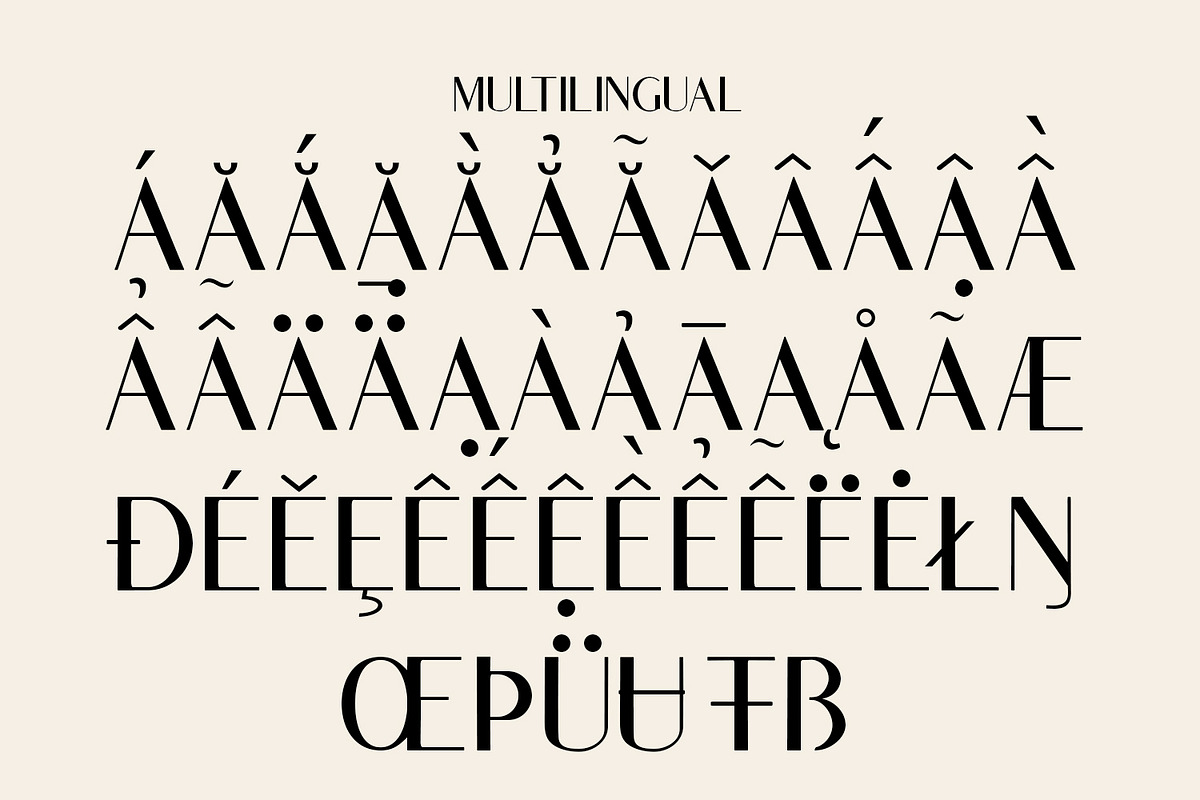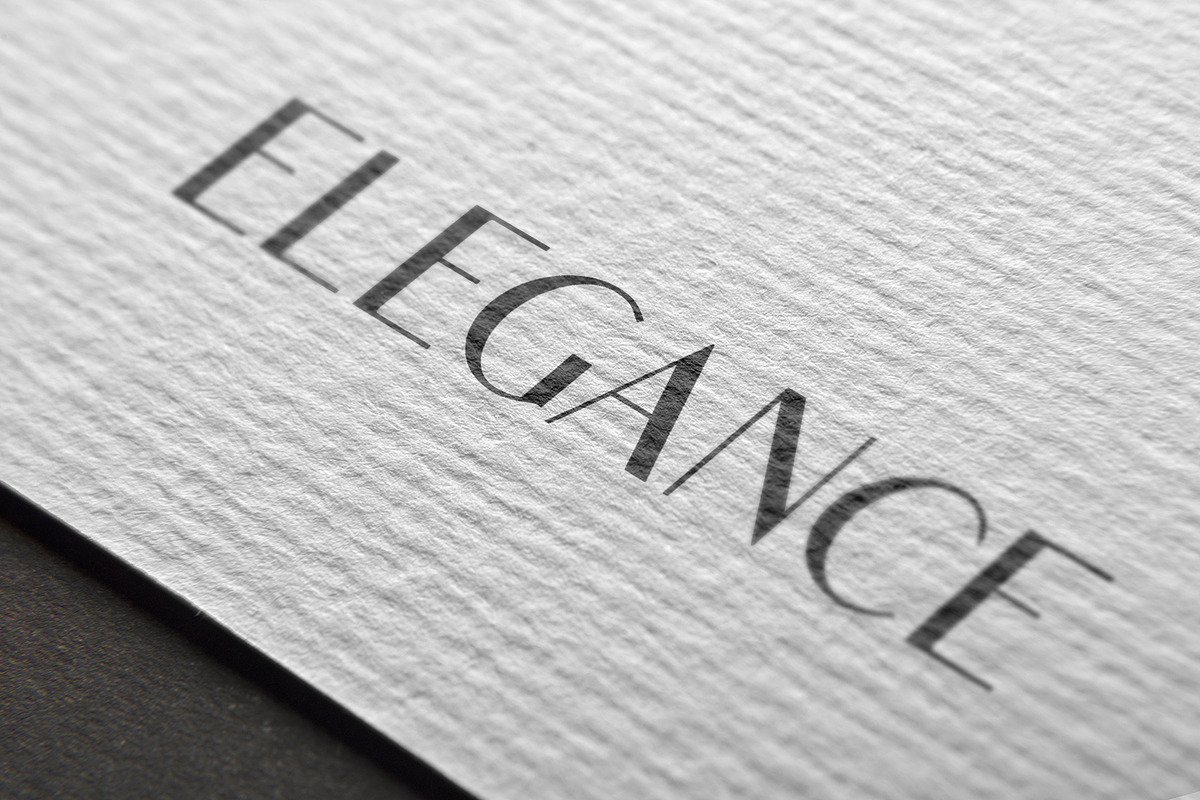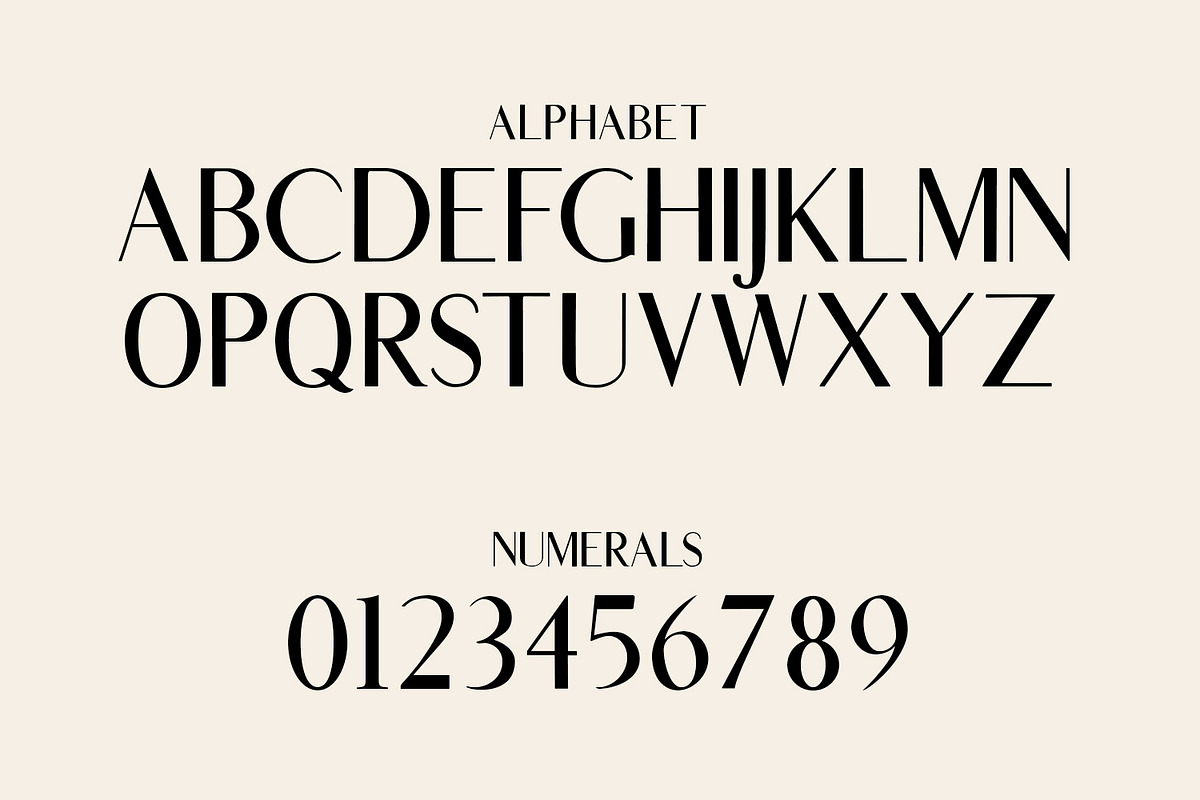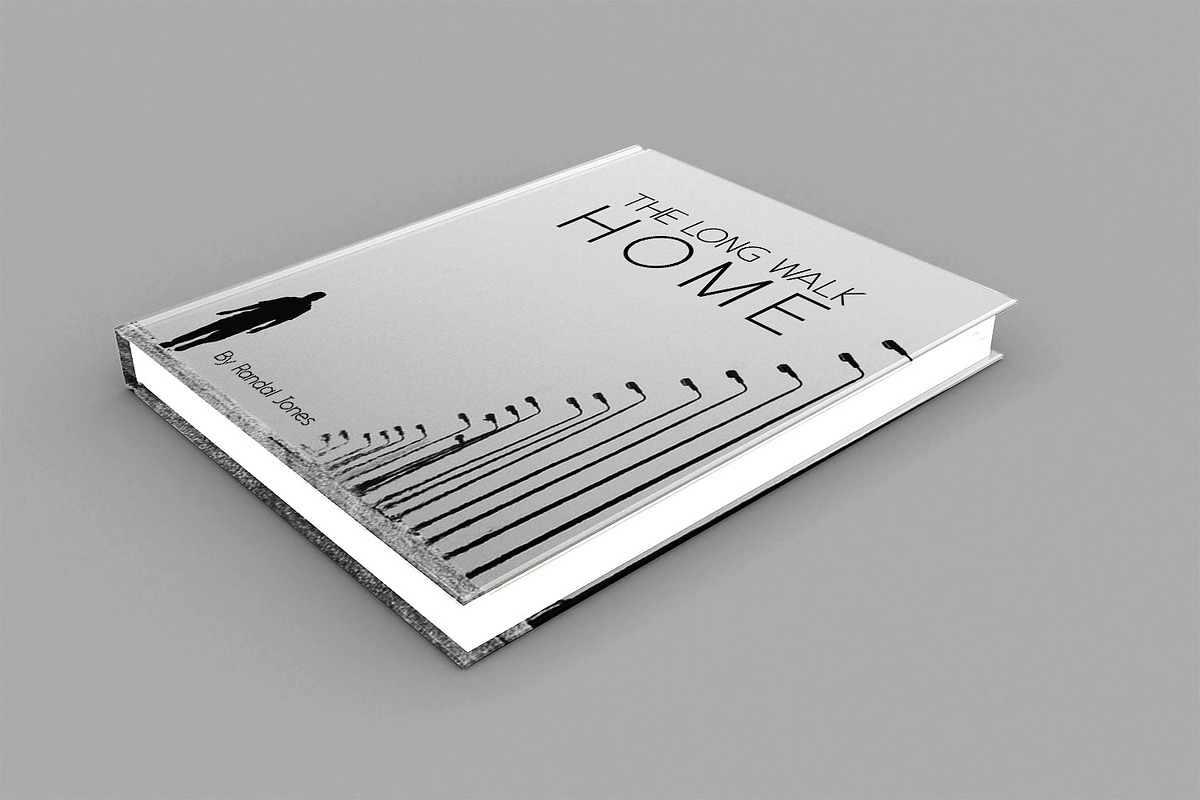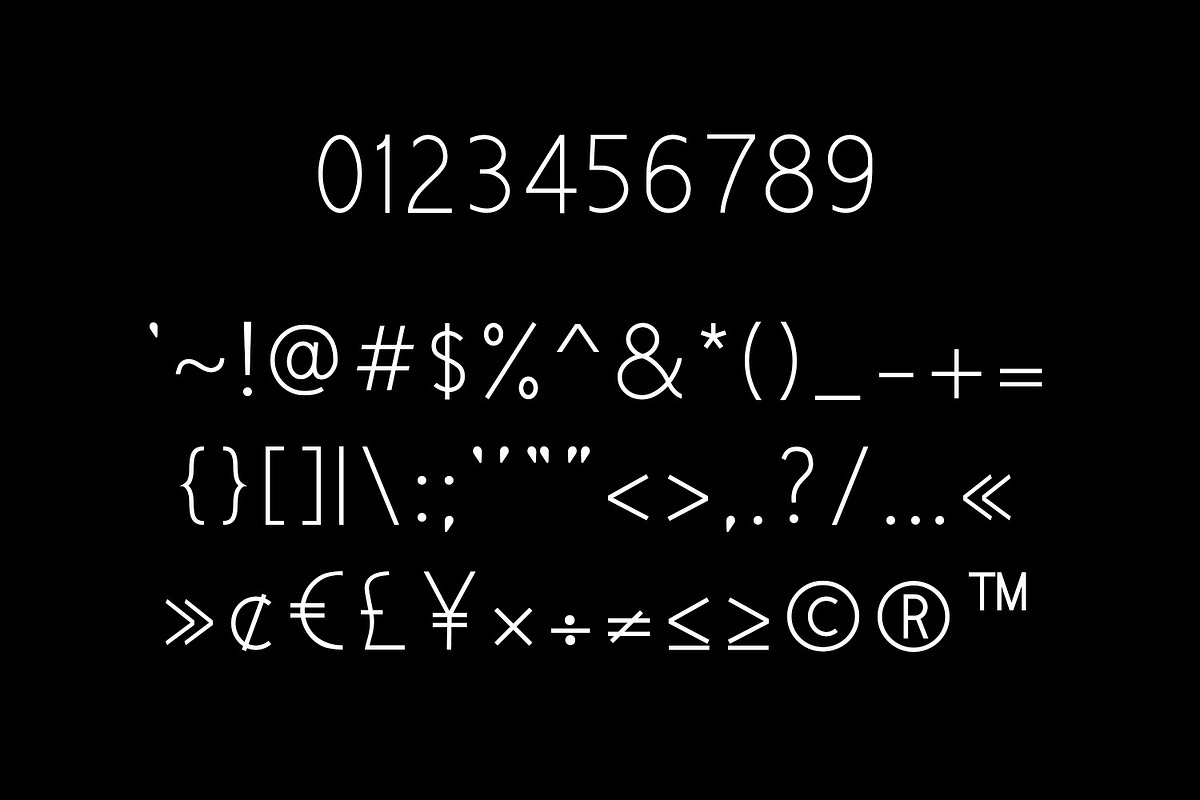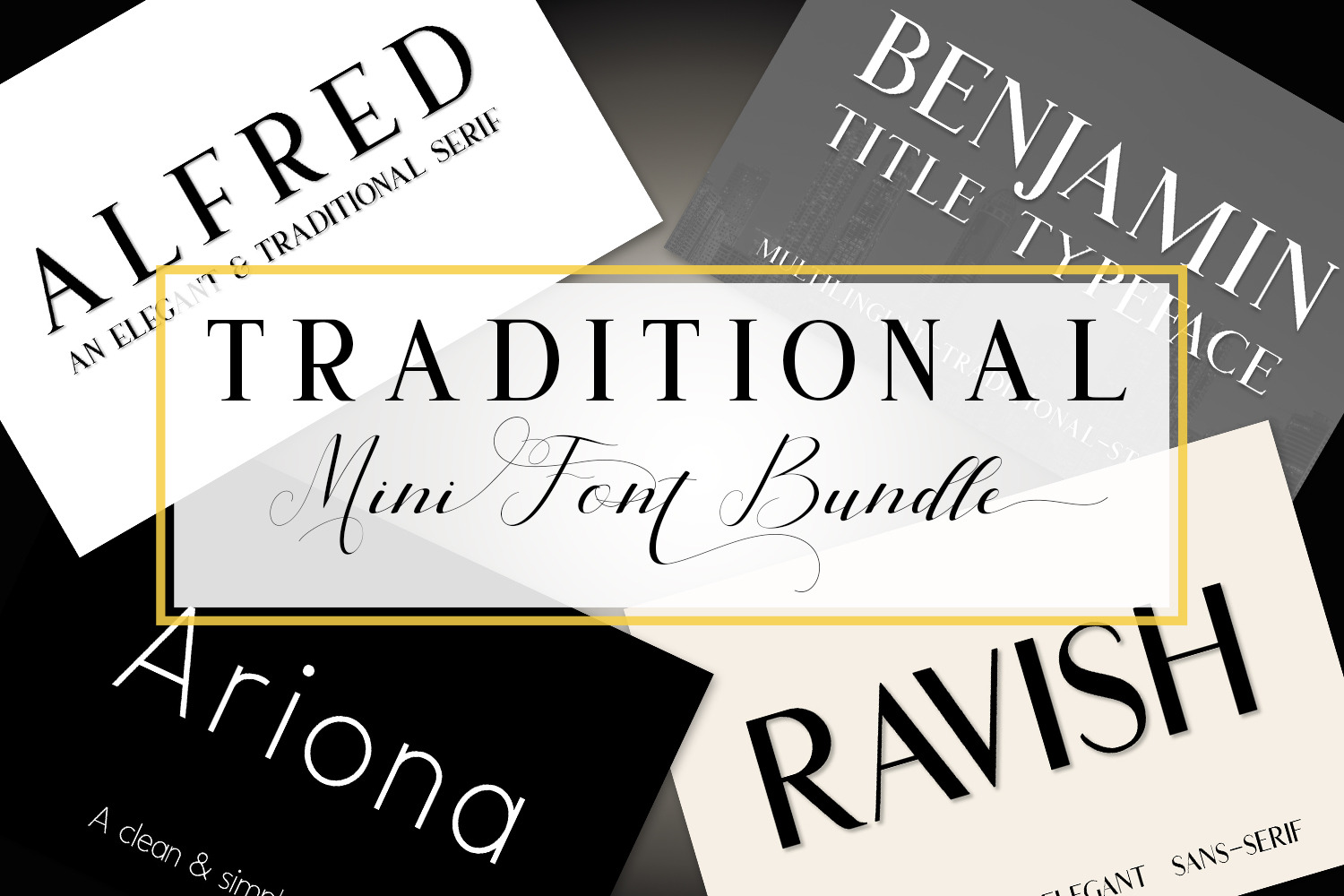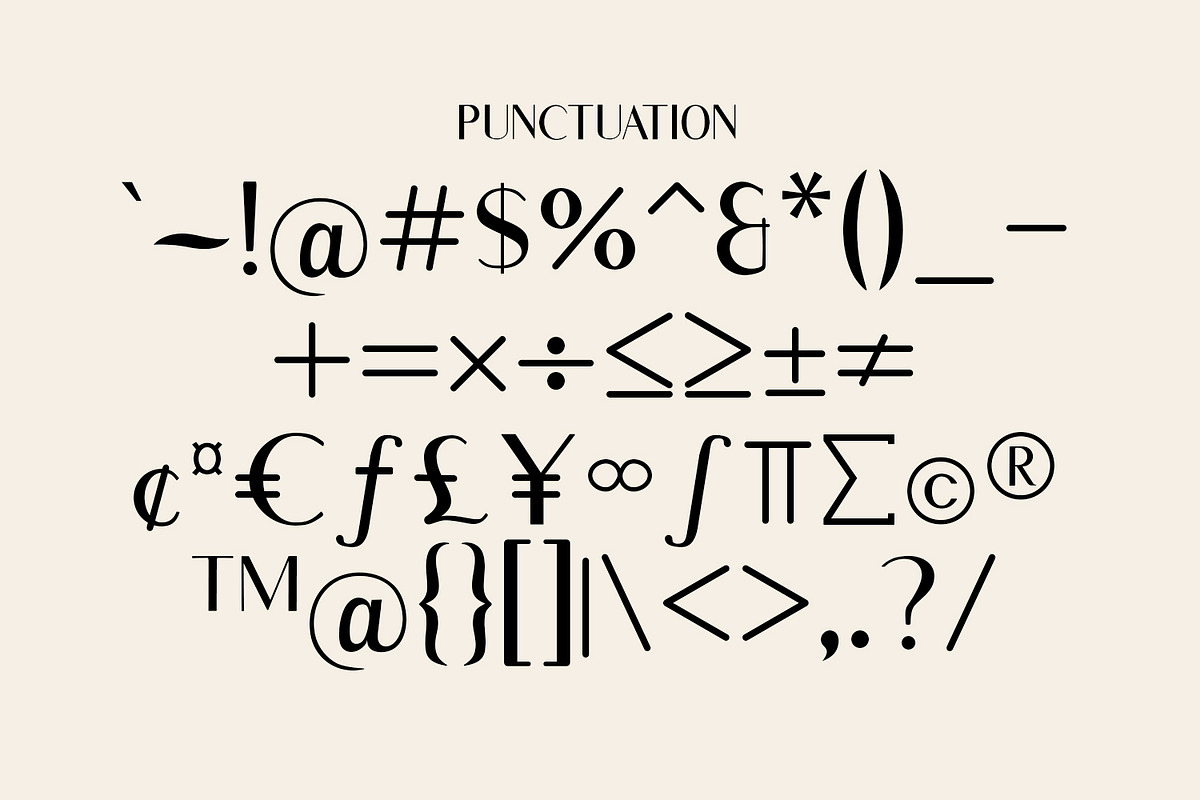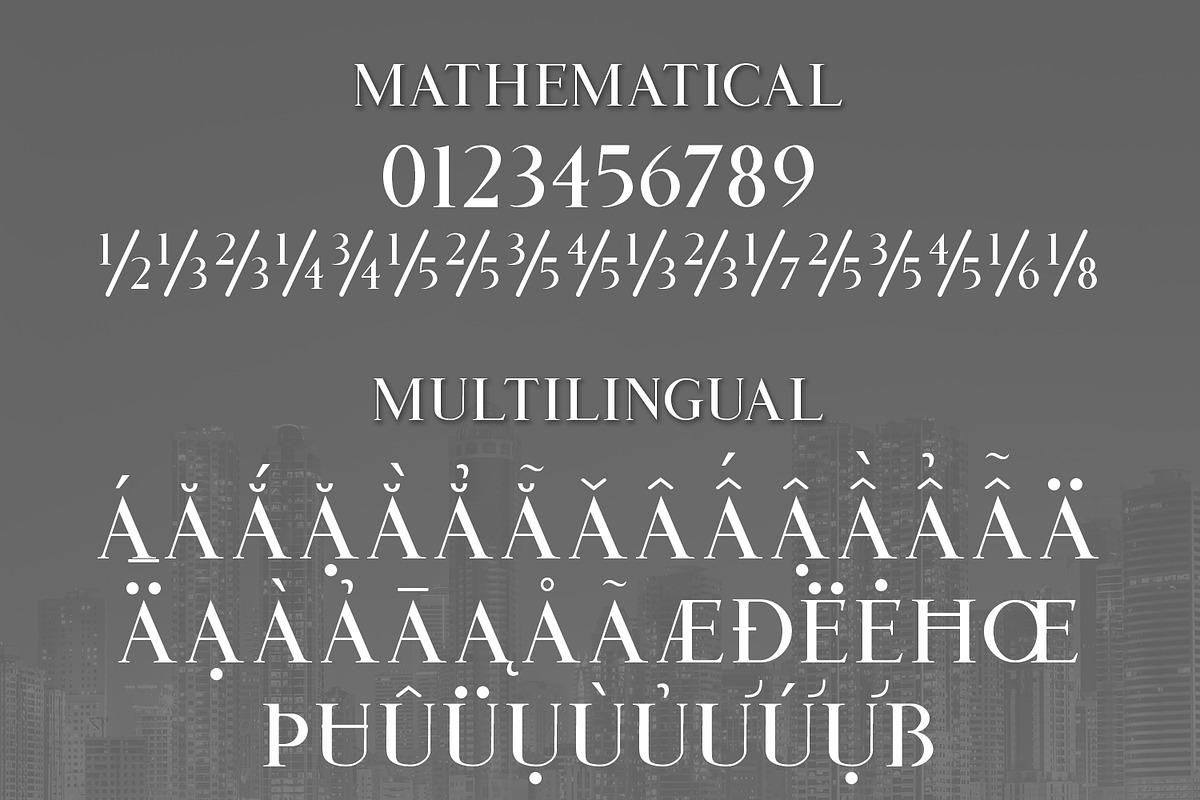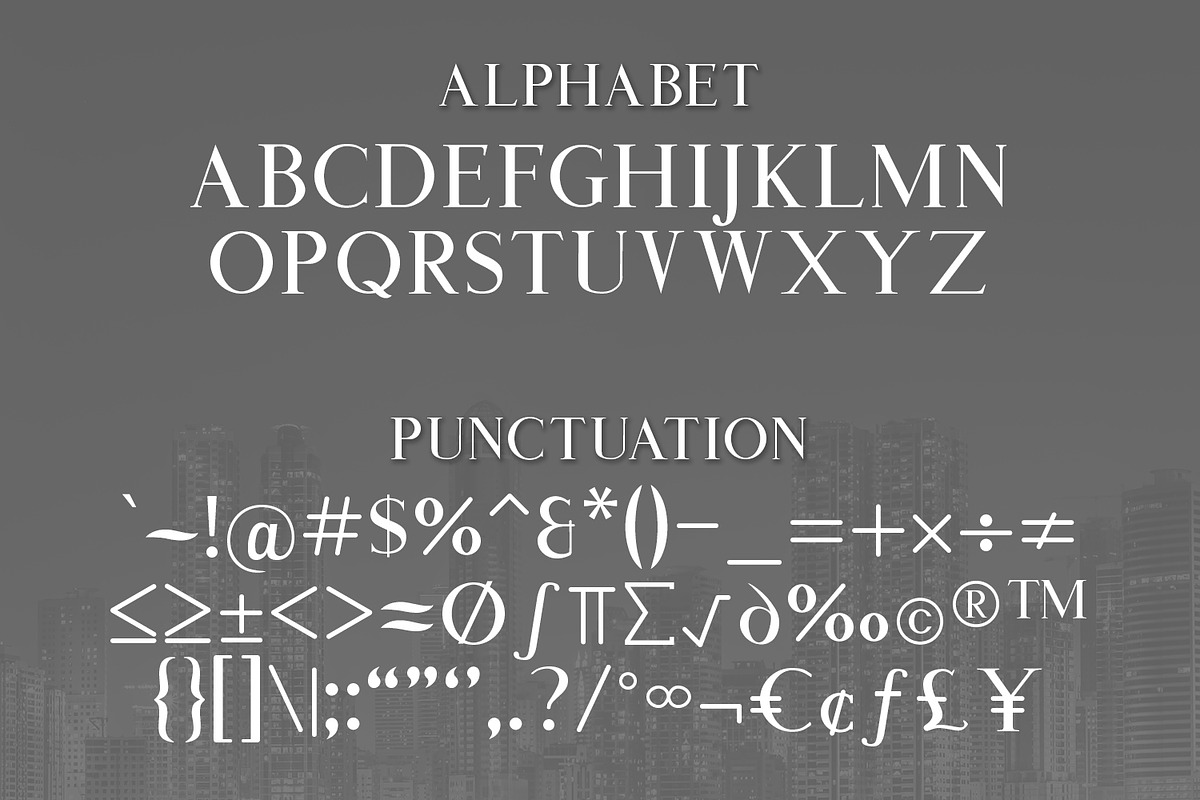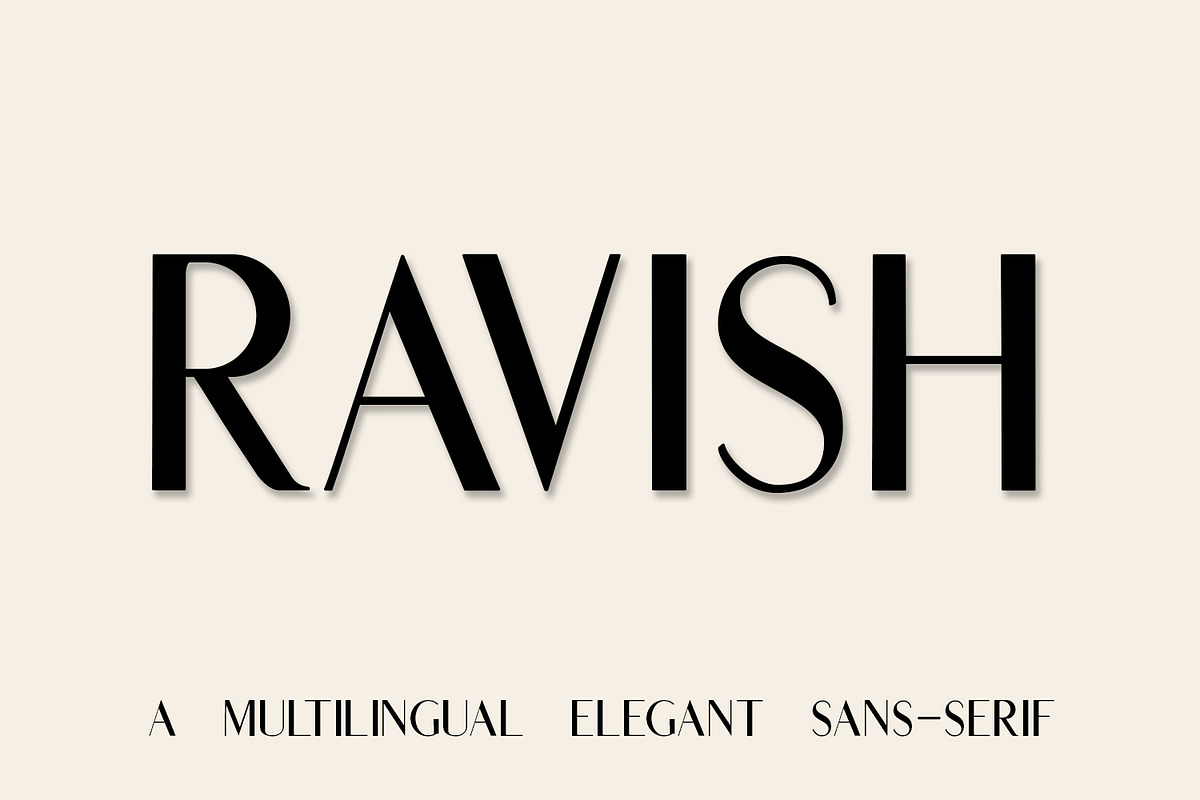
Traditional Mini Font Bundle
The Traditional Mini Font Bundle
This product is a small bundle of 4 traditional fonts, including 2 serif and 2 sans-serif fonts. Is your font collection filled to the brim with beautiful, swirly, script fonts? If you need new fonts to compliment those beautiful script fonts, or you just need a change of style, these traditional serif and sans-serif fonts might be just what your collection needs!
- Each font includes multilingual support for most Latin languages
Use these fonts in branding, business cards, flyers, posters, invitations, in logos or even on clothing. All 4 of these fonts are very versatile!